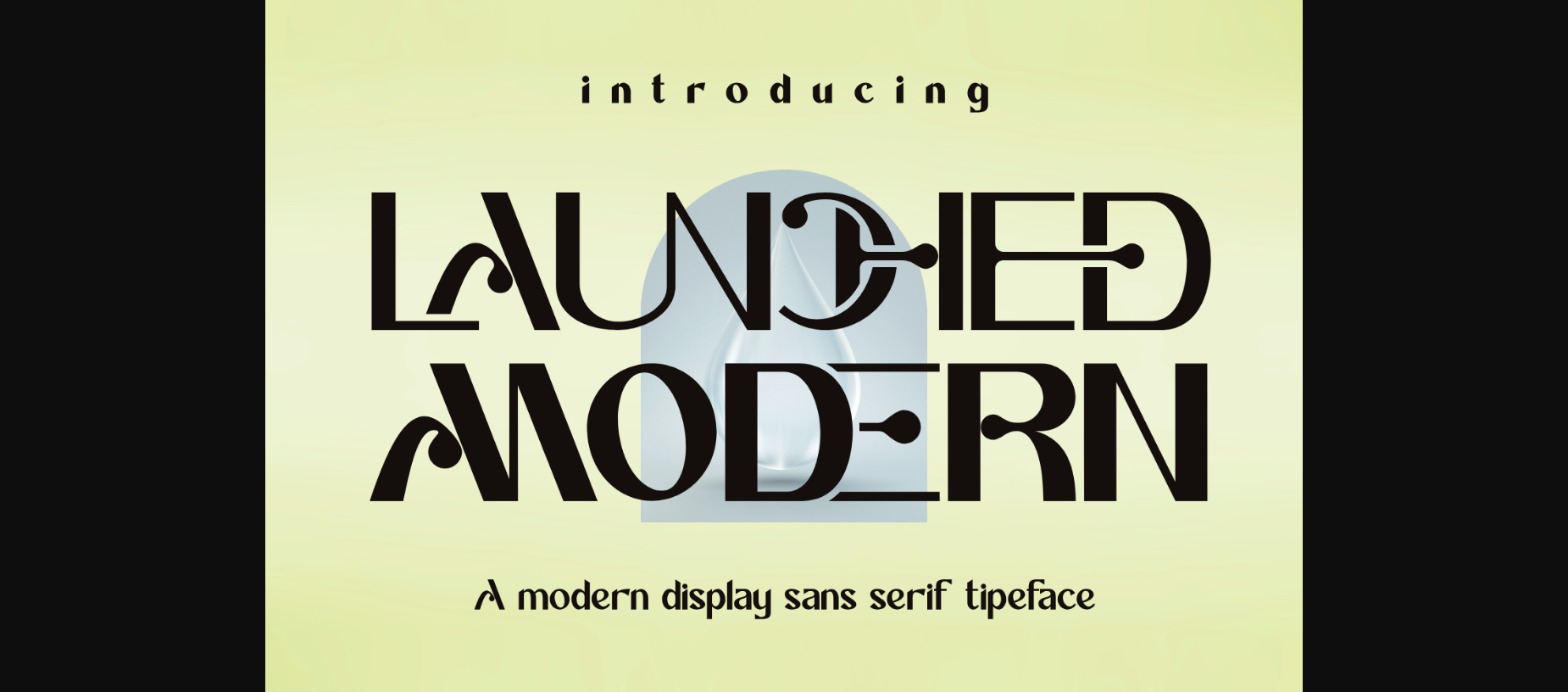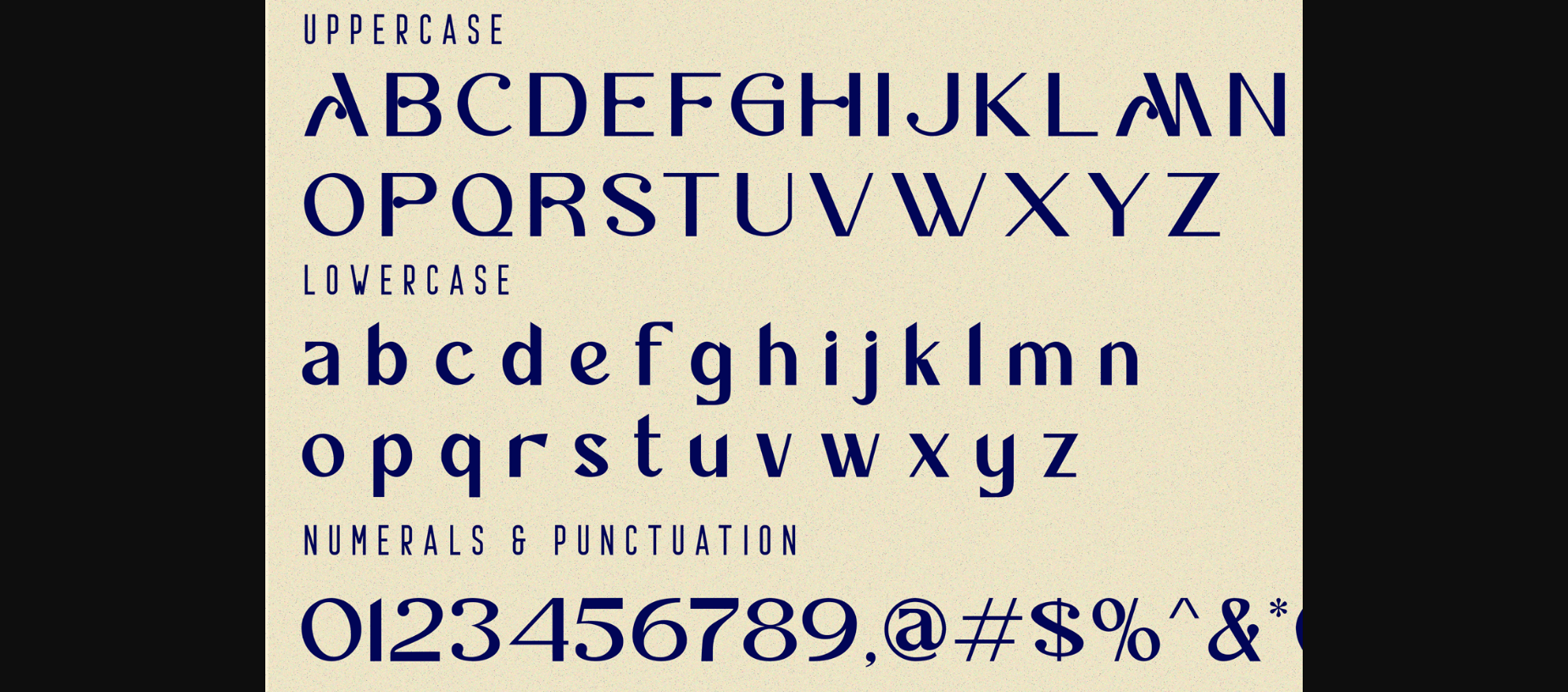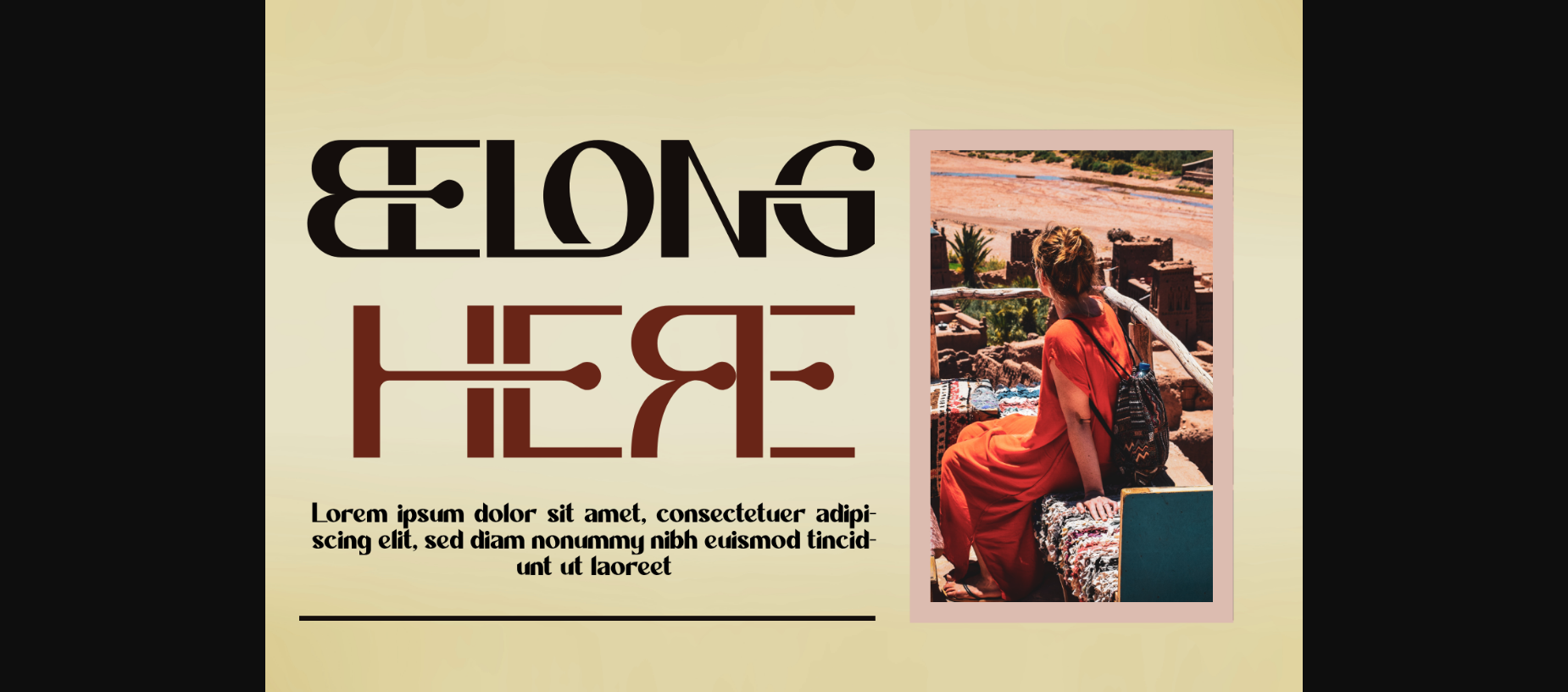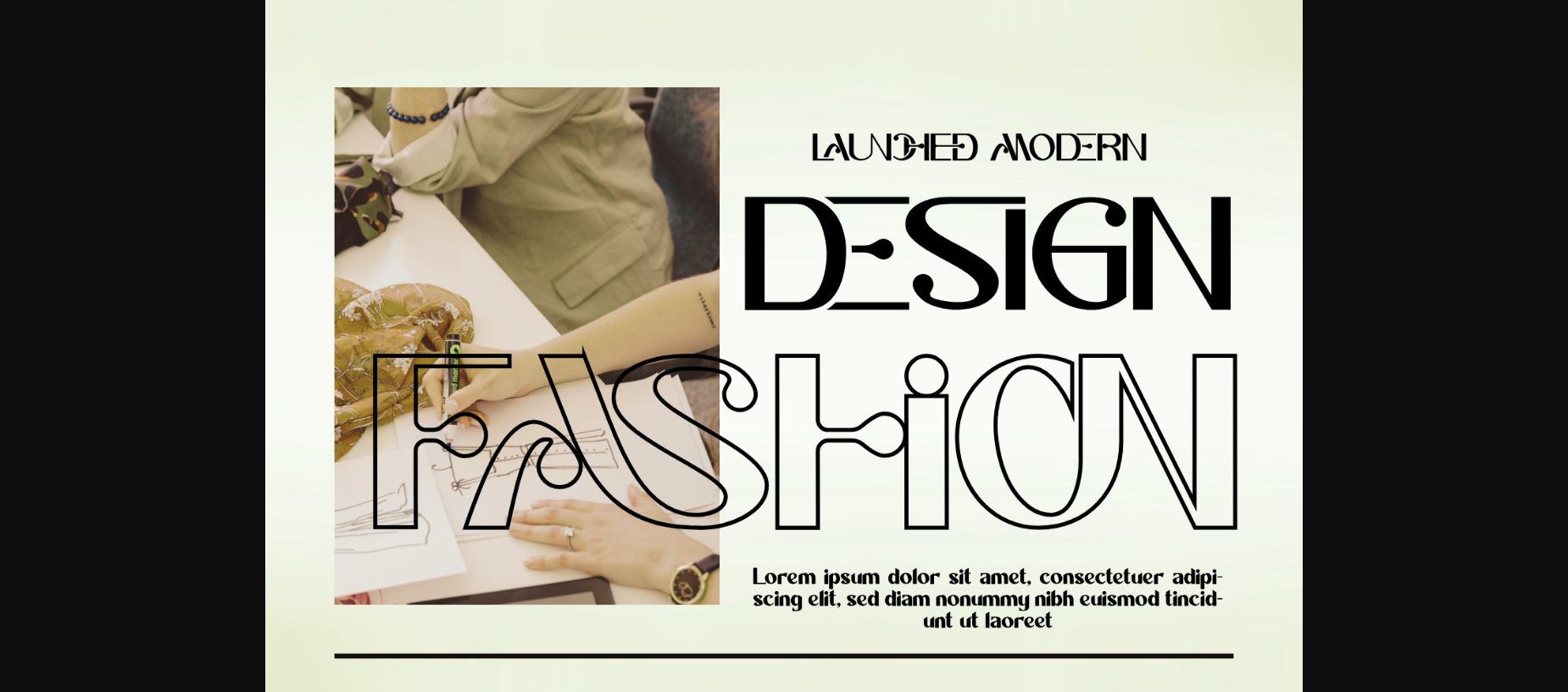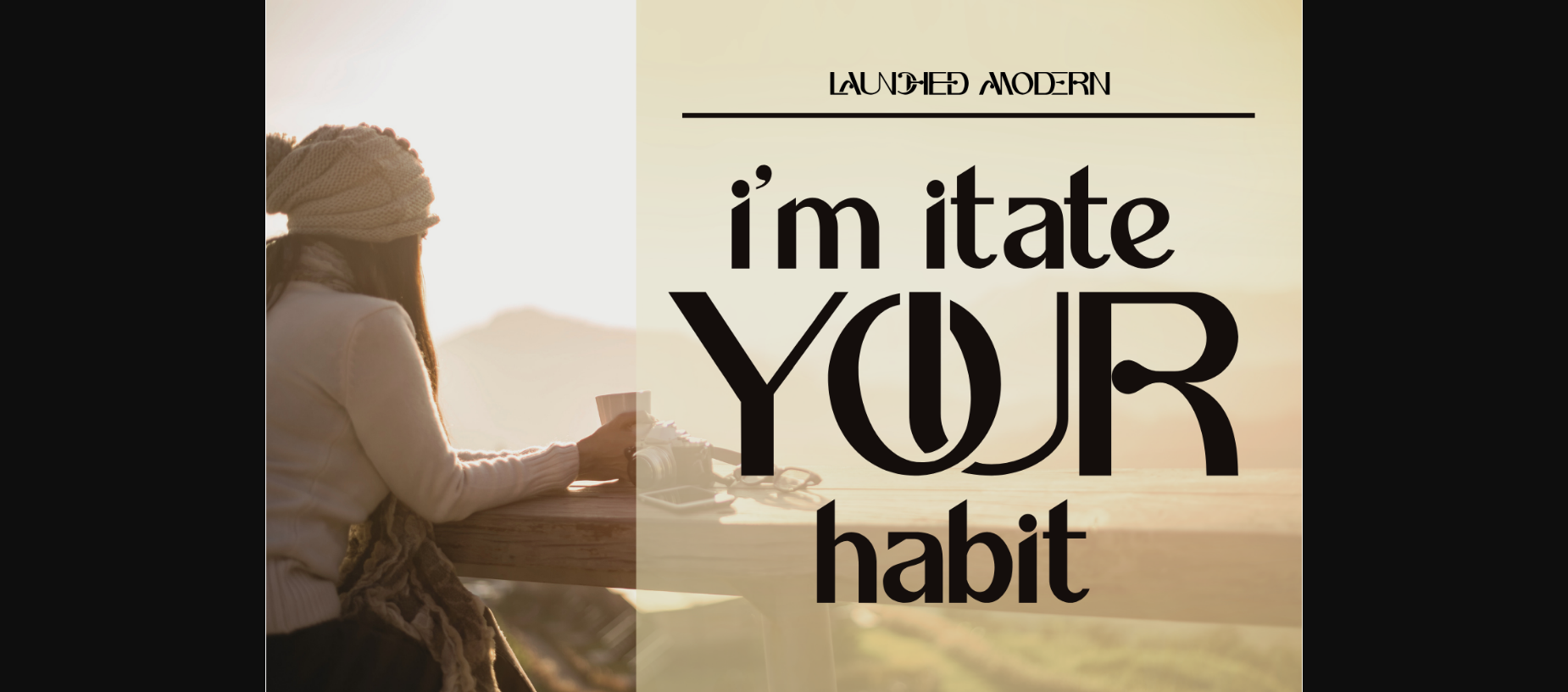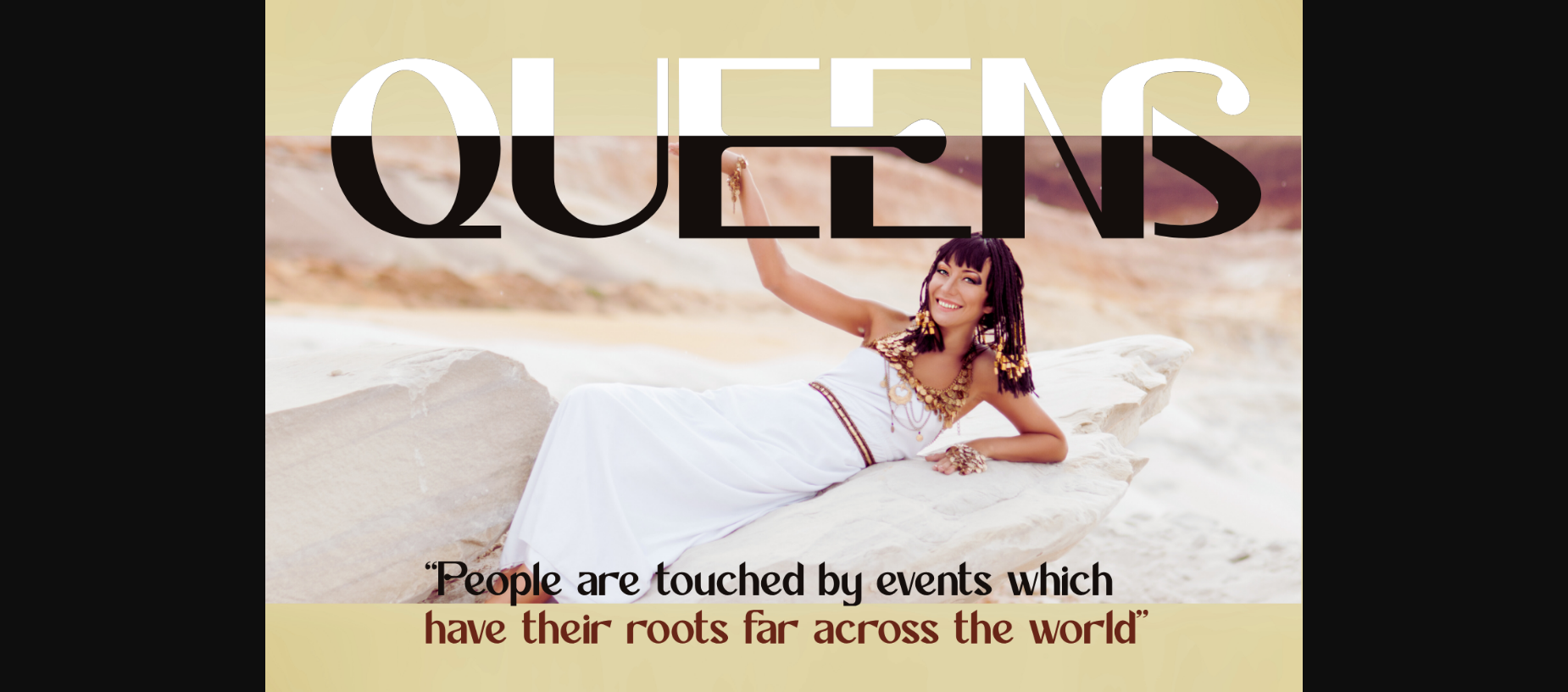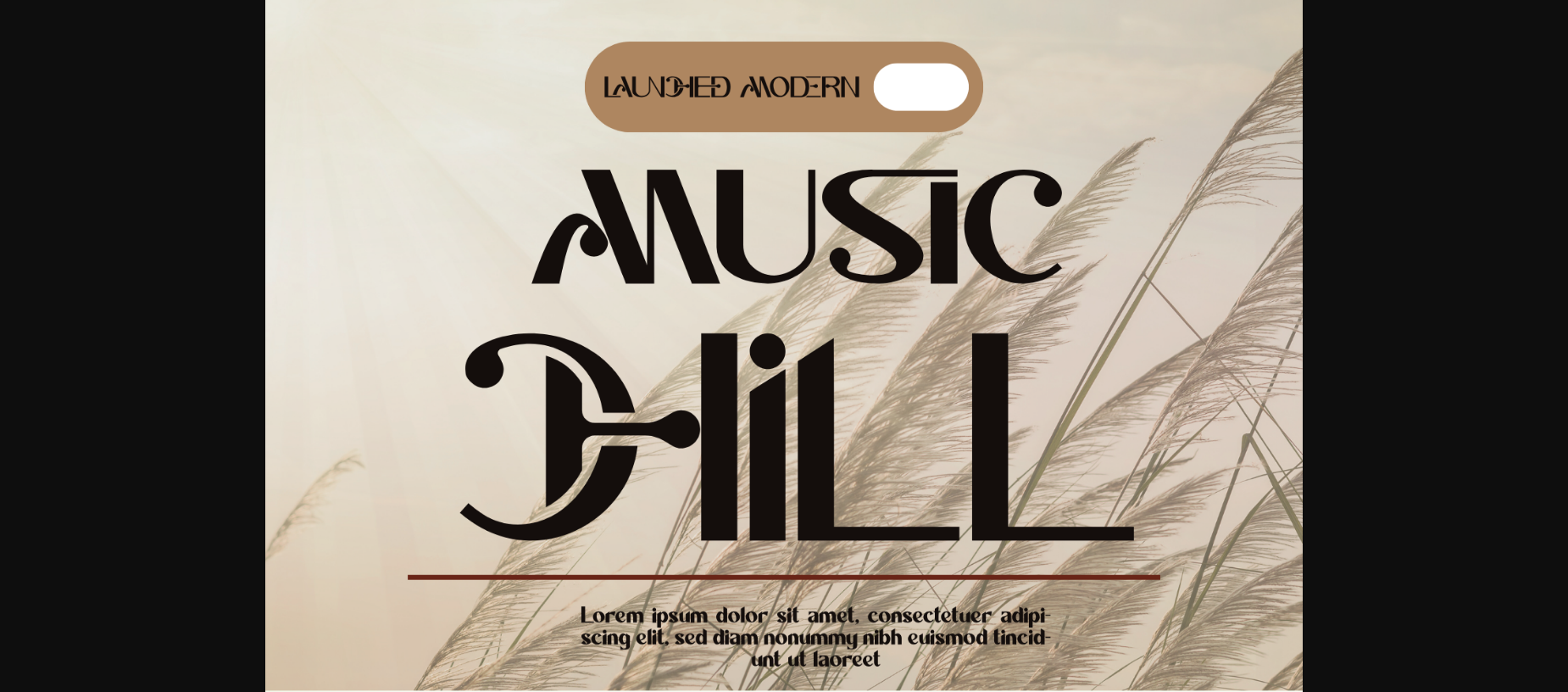
About Launched Modern Font
LAUNCHED MODERN FONT embodies bold elegance and a touch of modern flair, this sans-serif typeface stands out as a beacon of creativity in the design world. This font is designed to capture attention and leave a lasting impression across various design projects. The font is suitable for any branding project like poster, logo, sport, and many more. Outstanding in a wide range of contexts.
LAUNCHED MODERN was built with OpenType features and includes 100 ligatures, alternate, numbers, punctuation, and it also supports other languages.